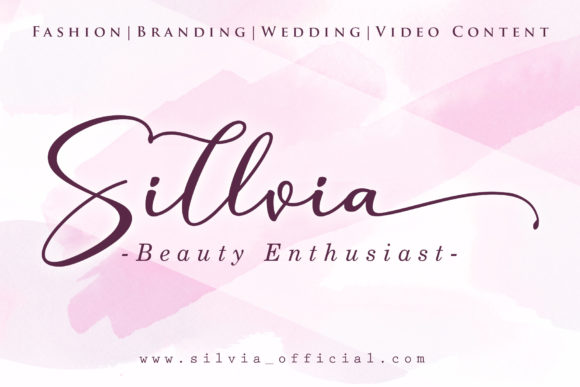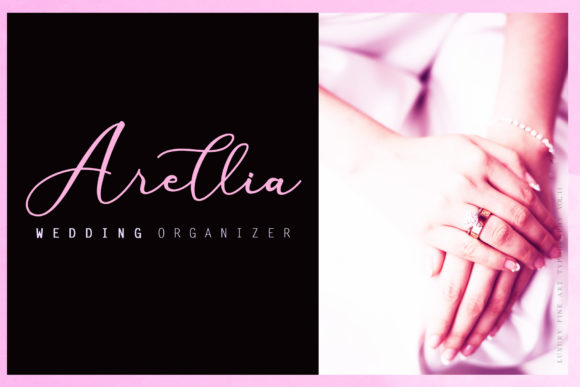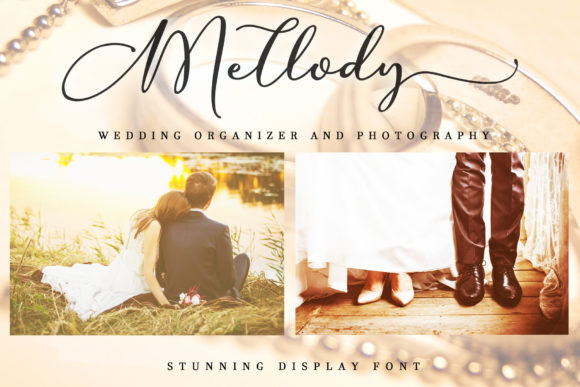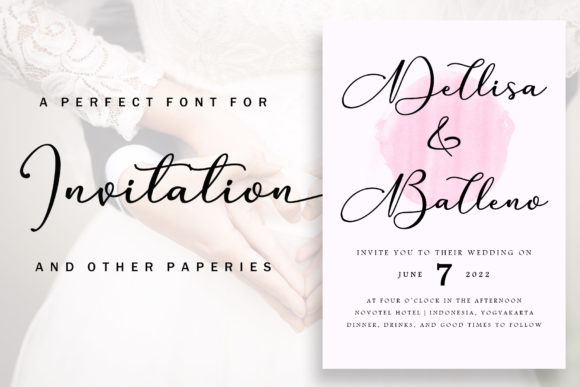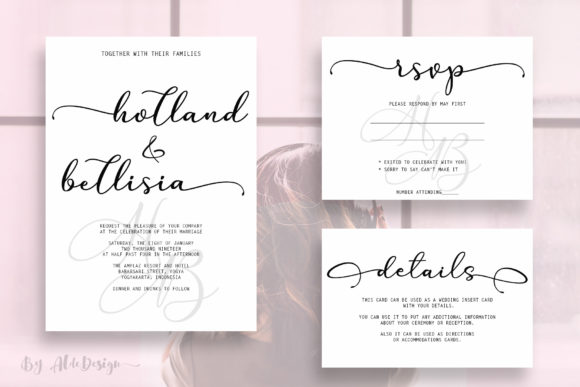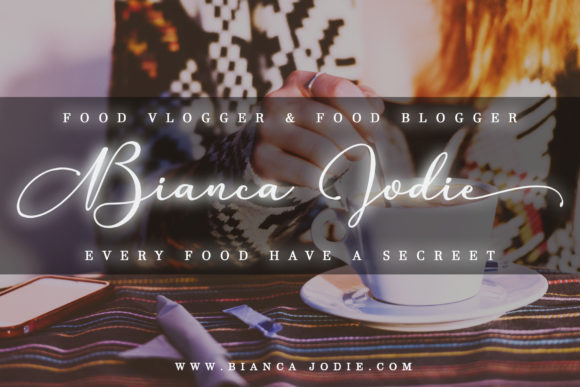
The Anything Script Font: A Bold and Authentic Style
Have you ever been in the middle of a design project, and suddenly, you’re stuck on finding the perfect font? I recall a recent experience where I was working on a branding project for a luxury boutique, and I just couldn’t find a script font that felt authentic and bold enough. That’s when I stumbled upon the Anything Script Font, and it completely transformed my design. In this article, we’ll dive into the world of Anything Script Font, exploring its features, how to use it, and some similar fonts you might love.
• ✨ Authentic Style: The Anything Script Font boasts a bold, authentic feel that’s perfect for luxury brands, high-end products, or creative projects that require a touch of sophistication.
• ✅ Ease of Use: This font is incredibly easy to read, even at smaller sizes, making it versatile for various design applications.
• 💡 OpenType Features: With access to a range of OpenType features, you can customize your text with stylistic alternates, glyphs, and more.
While the Anything Script Font is amazing, there are a few things to keep in mind:
• ⚠️ Legibility at Small Sizes: While generally easy to read, some of the more intricate details may get lost at very small font sizes.
• 🤔 Pairing with Other Fonts: Due to its bold nature, you’ll want to pair it with fonts that complement its style without overpowering it.
The Story Behind Anything Script Font
The Anything Script Font was designed with the intention of creating a bold, luxurious feel that’s both authentic and versatile. While the exact designer inspiration might be unclear, it’s evident that a lot of thought went into crafting a font that’s both beautiful and functional.
Q: What makes Anything Script Font unique?
A: Its bold, authentic style and extensive OpenType features make it stand out.
Q: Is Anything Script Font suitable for body text?
A: While it’s primarily designed for headlines and titles, it can be used for body text in certain contexts, especially if you’re aiming for a luxurious feel.
Q: Can I use Anything Script Font for my branding?
A: Absolutely! Its bold and authentic style makes it perfect for branding projects that require a touch of sophistication.